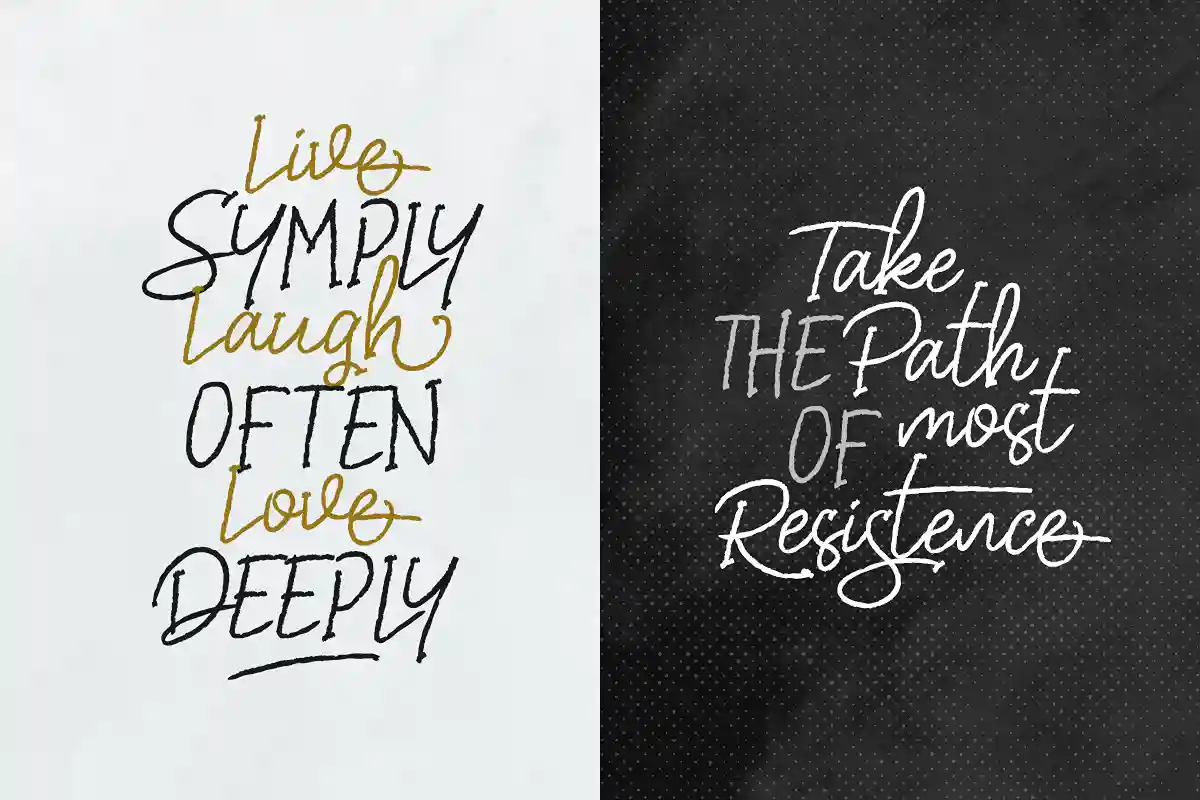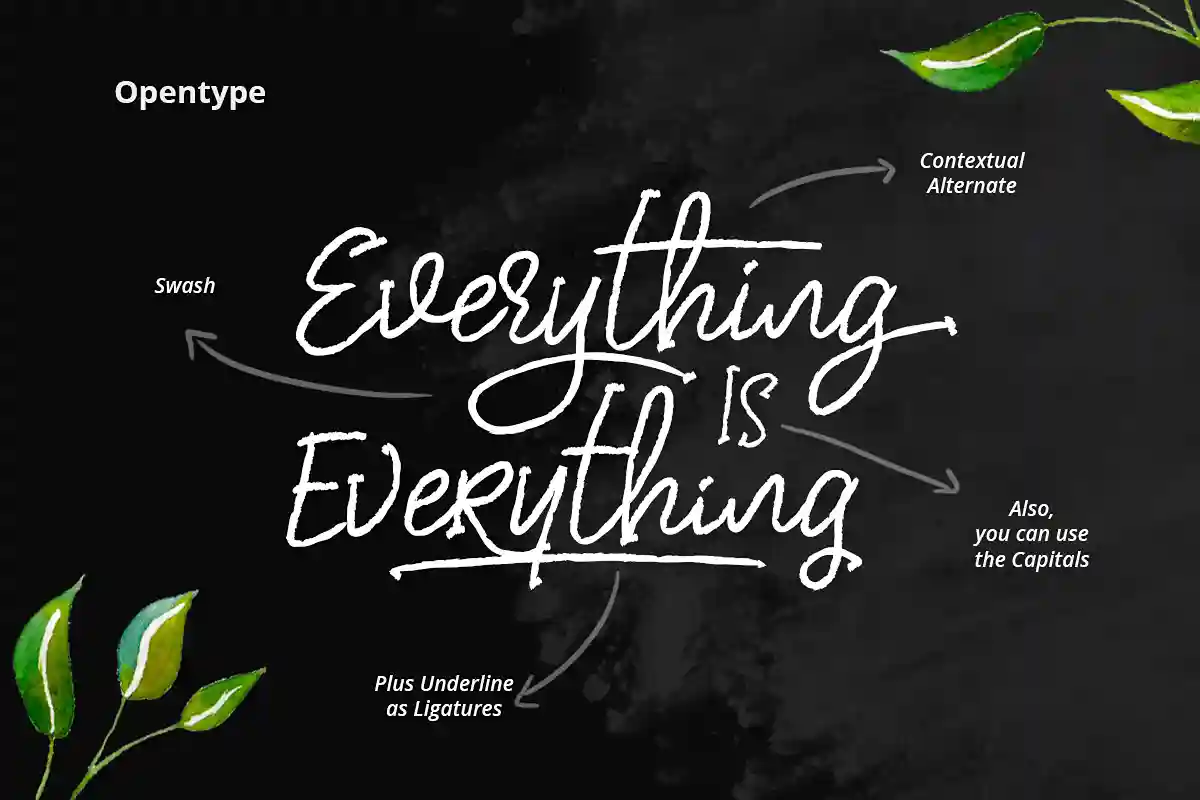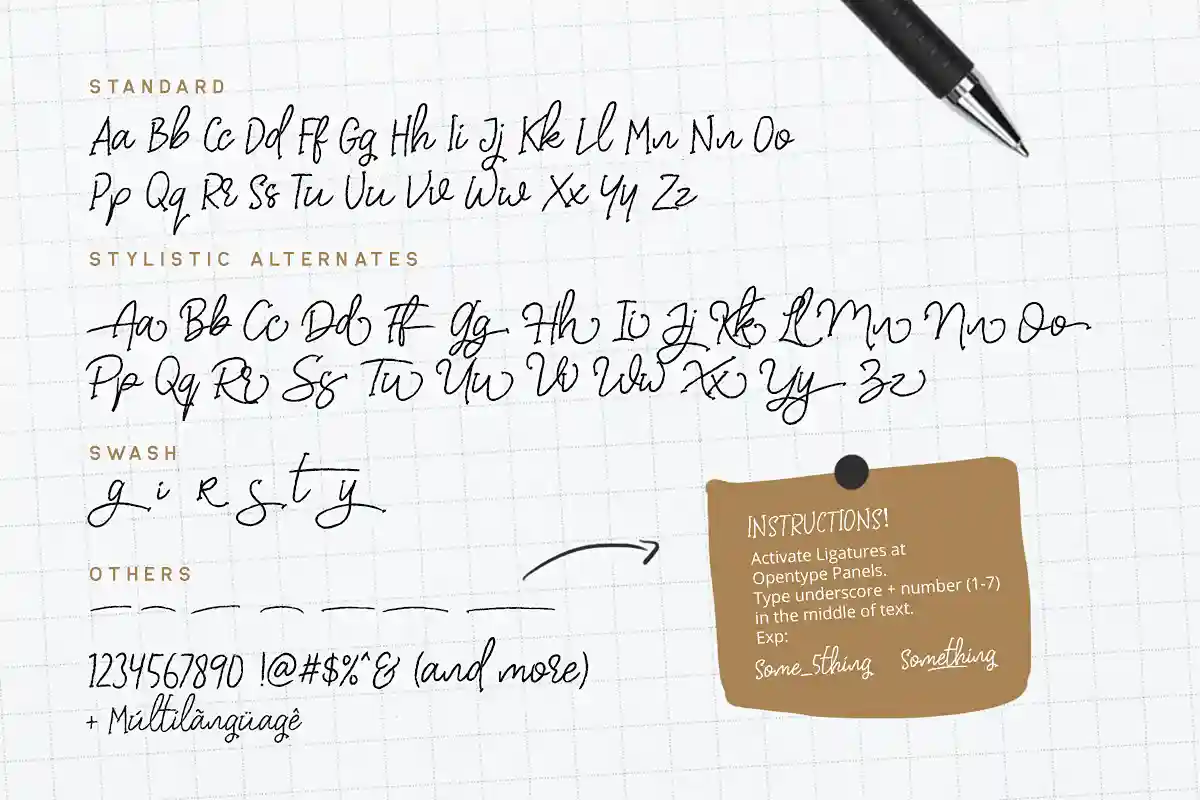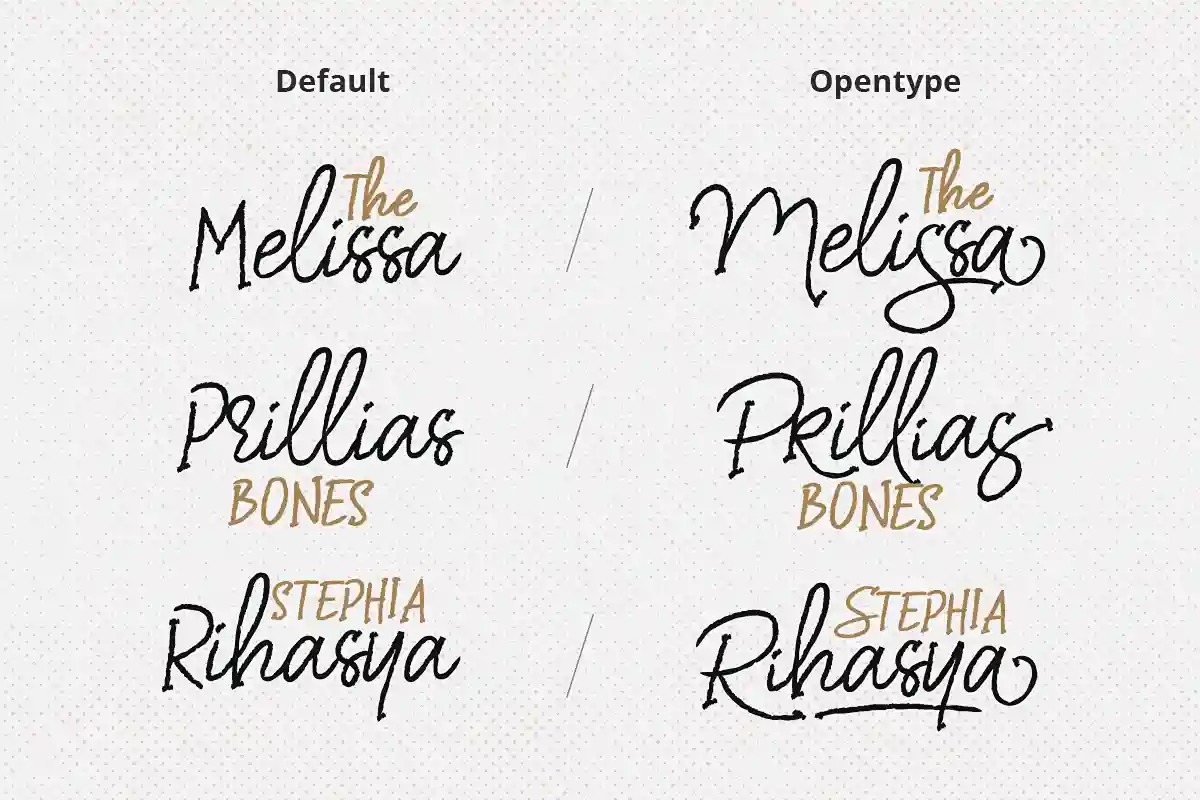
If you’re looking for a font that feels warm, natural, and handwritten, Dear Disya is exactly what you need. It’s a beautiful handwritten typeface designed to add a human touch to your creative work. Each letter carries the smooth rhythm and flow of real handwriting, making it perfect for heartfelt projects, personalized branding, or elegant invitations.
A Handwritten Font That Feels Real
Dear Disya captures the essence of genuine penmanship. It’s not overly polished or mechanical — instead, it brings out subtle imperfections that make your text feel alive and personal. Whether you’re designing a logo, writing a quote, or crafting social media posts, this font instantly gives your design a friendly, organic tone.
Packed with Creative Features
This font comes loaded with ligatures, stylistic alternates, and swashes that help you create unique text compositions. You can easily switch between variations to get the perfect handwritten flow. From decorative tails to soft connecting strokes, every character has been crafted to look authentic and versatile.
Dear Disya also supports multiple languages, so your message can reach audiences worldwide without losing style or consistency. Whether you’re writing in English, Spanish, French, or more — this font stays beautifully readable.
Perfect for Many Uses
Designers love Dear Disya because it fits a wide range of projects. It works perfectly for wedding invitations, greeting cards, quotes, branding projects, posters, and packaging designs. You can also use it for blogs, logos, or any design that needs a touch of warmth and authenticity.
In short, Dear Disya is more than a font — it’s a personal handwriting tool that helps you communicate warmth, sincerity, and creativity in every word.